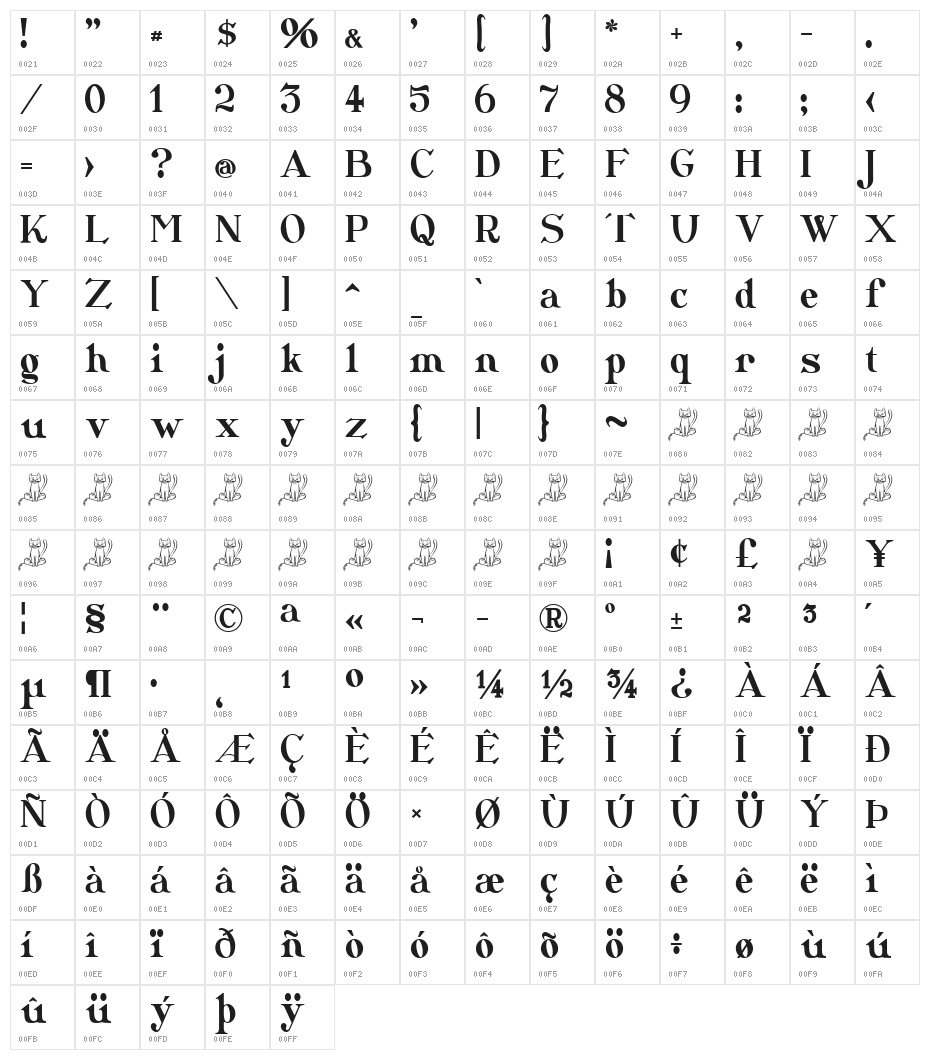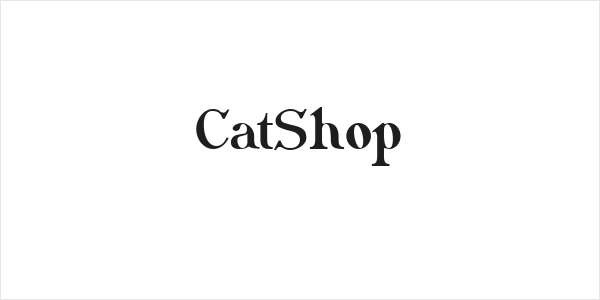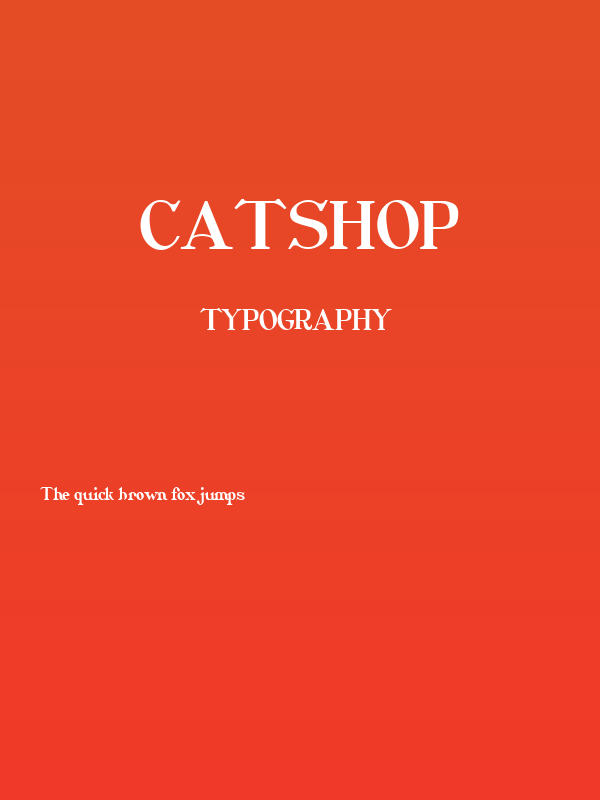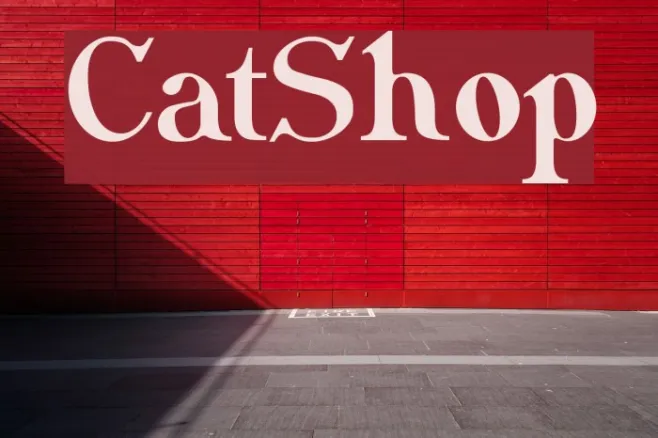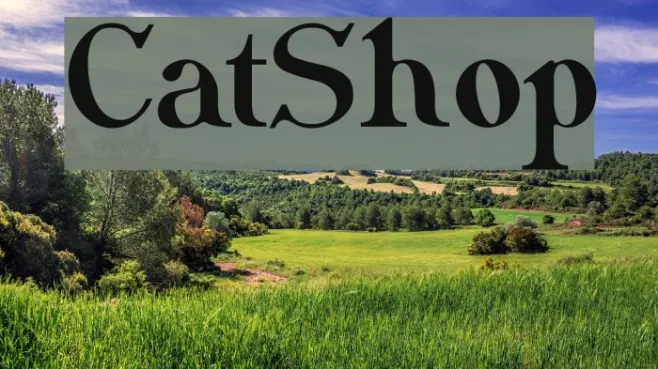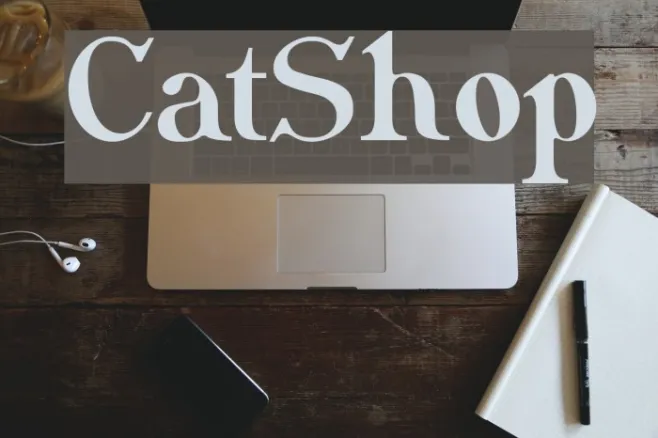
CatShop Font
CatShop Description
This font features a bold and striking design with high contrast between thick and thin strokes, giving it a dramatic and elegant appearance. The serifs are pronounced and add a touch of sophistication, making it suitable for formal and decorative purposes. The uppercase letters are tall and commanding, while the lowercase letters maintain a consistent style with unique curves and flourishes. The numerals are equally bold, ensuring they stand out in any design. Special characters are included, maintaining the overall aesthetic of the font. This typeface is perfect for creating impactful headlines, logos, and branding materials that require a touch of elegance and authority.